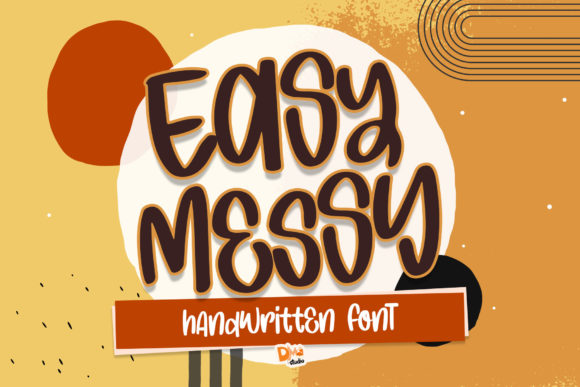
Behold, Easy Messy Font, the enchanting script font that embodies creativity and joy! Crafted with precision by dmletter31, this handwritten gem adds a delightful touch to every design project. Dive into an array of design possibilities with Easy Messy Font.
Let your imagination dance with this versatile font, perfect for advertising designs that yearn for a dash of whimsy and charm. Its free-flowing lines and playful characters create a captivating narrative, drawing eyes and capturing hearts. Transport your audience to a world of artistry and visual delight with Easy Messy Font.
Unleash the boundless potential of Easy Messy Font as you design posters, flyers, and social media graphics that ooze with creativity and appeal. Craft eye-catching logos and branding materials that stand out from the crowd, leaving a lasting impression on your customers. Engage them with vibrant and memorable designs that speak directly to their hearts.
Step into the world of Easy Messy Font and discover a fountain of artistic expression. Say goodbye to bland, ordinary fonts and ignite your passion for design. Let your projects radiate with personality and charm as you weave captivating tales through your designs.
Embrace the beautiful chaos of Easy Messy Font, where every twist and turn of the letters tells a unique story. Embrace the allure of imperfection and let your designs exude an authentic and genuine touch. Feel the invigorating energy of Easy Messy Font flowing through your veins as you create masterpieces that resonate with your audience.
Join the ever-growing community of creative visionaries who trust Easy Messy Font to elevate their designs. Discover the joy of effortless elegance as you watch your designs transform into works of art, captivating your audience with their charm and allure.